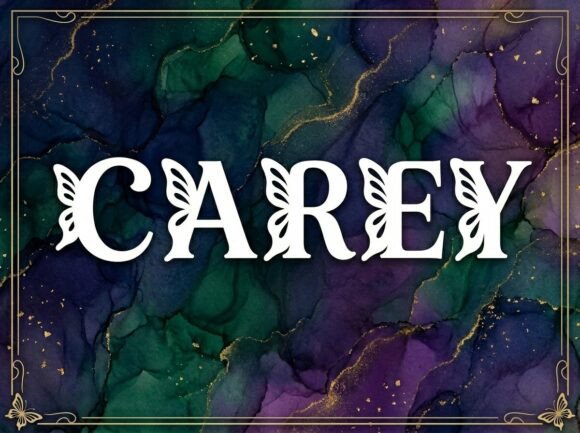
The Magical World of Carey Font: Elevate Your Designs with Whimsy and Wonder
I’ll never forget the design project that led me to discover the enchanting Carey Font. I was working on a branding project for a children’s boutique, and I needed a font that would capture the essence of whimsy and fantasy. After hours of searching, I stumbled upon Carey, and it was love at first sight! ✨ The unique blend of bold, sturdy letterforms and delicate, hand-drawn serifs instantly transported me to a world of wonder and magic.
As I dove deeper into the world of Carey Font, I fell in love with its distinctive personality. Here’s what makes it special:
- ✨ Unique, hand-drawn “butterfly wing” serifs that add a touch of organic nature illustration to any design
- ✅ Bold, sturdy letterforms that command attention and exude confidence
- 🎨 A versatile font that seamlessly bridges the gap between modern boutique branding and traditional illustration
- 🌈 A range of OpenType features, glyphs, and stylistic alternates to experiment with
Of course, no font is perfect, and Carey has a few minor quirks to consider:
- 🤔 Some users may find the font’s heavy structural weight overwhelming for certain design applications
- ⚠️ The font’s unique serifs may not be suitable for very small font sizes or detailed graphics
The Story Behind Carey Font: A Glimpse into the Designer’s Inspiration
Carey Font was designed with a clear vision: to create a typeface that would capture the essence of whimsy and fantasy. Inspired by the delicate beauty of butterfly wings and the magic of fairytales, the designer crafted a font that would transport users to a world of wonder and enchantment. With its bold, sturdy letterforms and delicate serifs, Carey Font is the perfect choice for designers seeking to add a touch of magic to their creations.
| Font Name | Carey Font |
| Author | lawboomer |
| What makes Carey Font unique? | Carey Font features bold, sturdy letterforms with hand-drawn “butterfly wing” serifs, giving it a distinctive and whimsical personality. |
| Is Carey Font suitable for small font sizes? | While Carey Font can be used at smaller font sizes, its unique serifs may not be as legible. It’s best used at larger font sizes for maximum impact. |